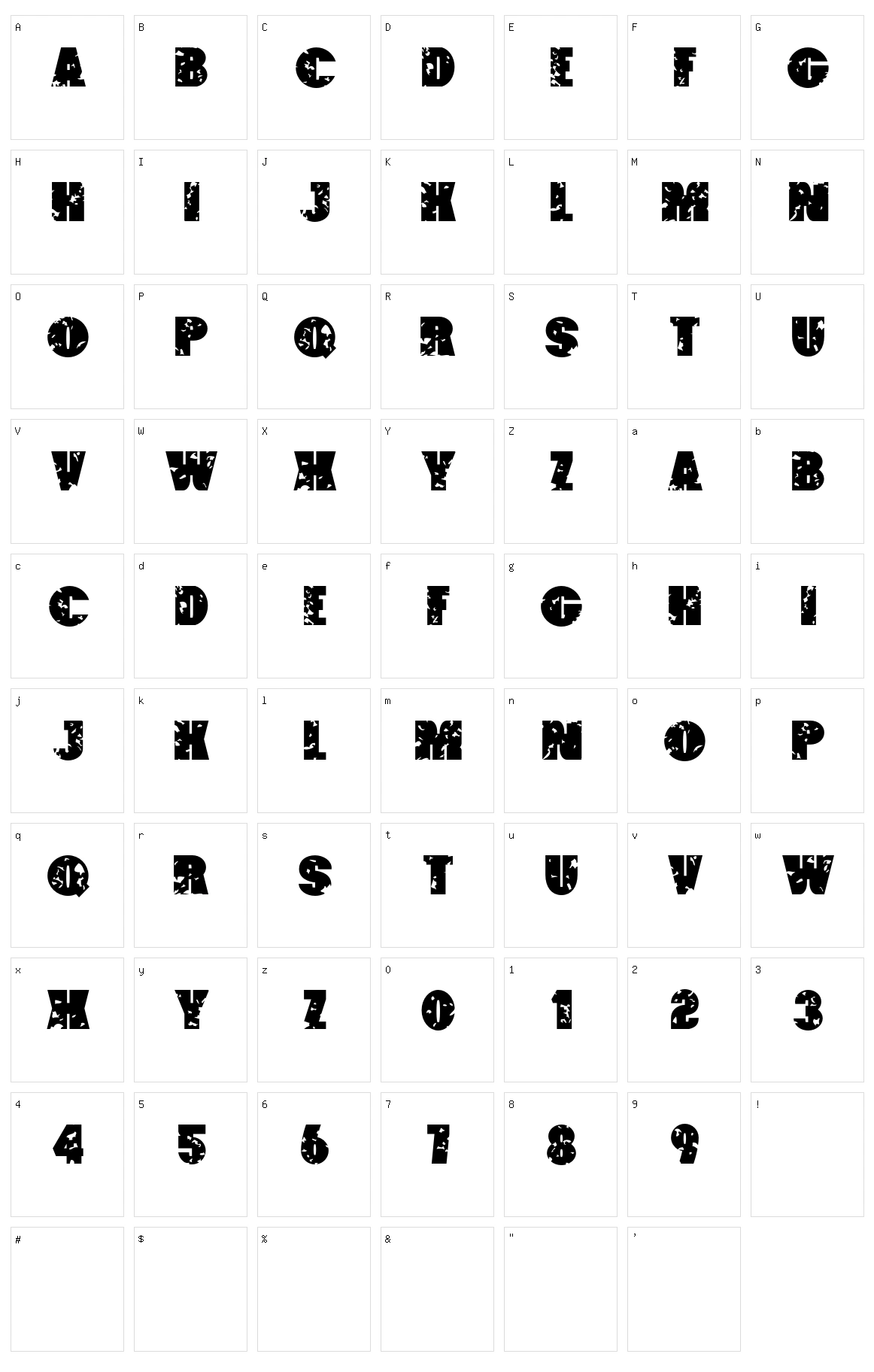
The free font Paint Bucket is carefully designed by Jeremy Woods, showcasing a thoughtful balance of creativity and usability and falls under the Destroy font style. When you download the ZIP file, it contains only 15.05 KB of font files, making it lightweight and quick to download. Please review the license details below to understand permitted usage and distribution rights. If license information is not available, we recommend using this font for personal projects only or contacting the author directly for commercial usage permissions.